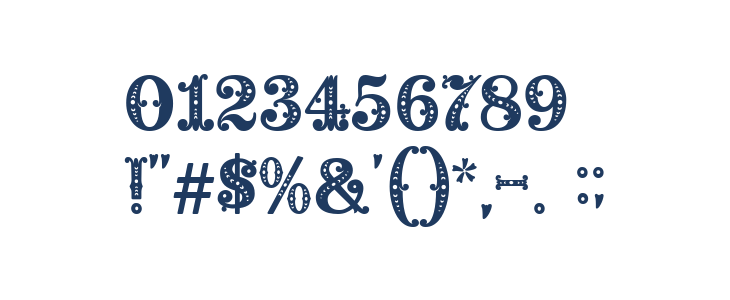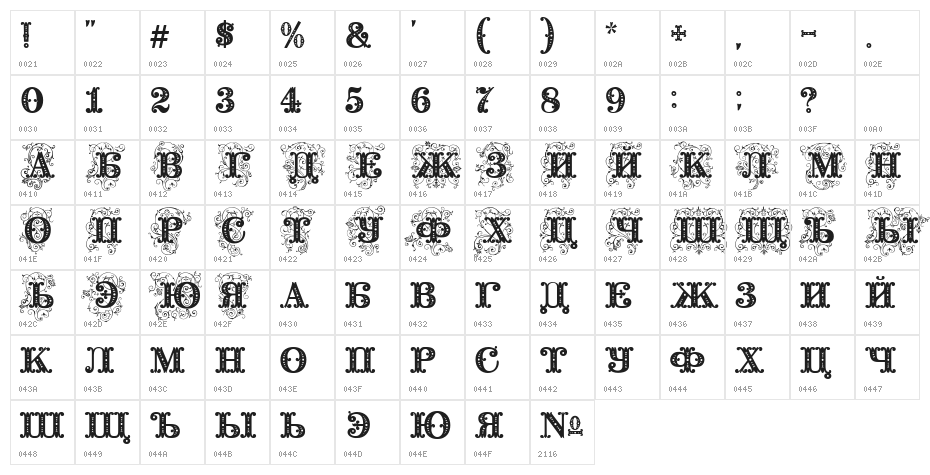
Barocco Floral Initial Font
Barocco Floral Initial Description
This font features an ornate and decorative style, reminiscent of Baroque art with intricate floral patterns integrated into each character. The design is highly detailed, with embellishments that give it a luxurious and classical feel. Each letter and number is adorned with flourishes and curves, creating a sense of elegance and sophistication. The font's unique style makes it stand out, ideal for projects that require a touch of historical or artistic flair. Its decorative nature suggests a focus on aesthetics over readability, making it more suitable for display purposes rather than body text.